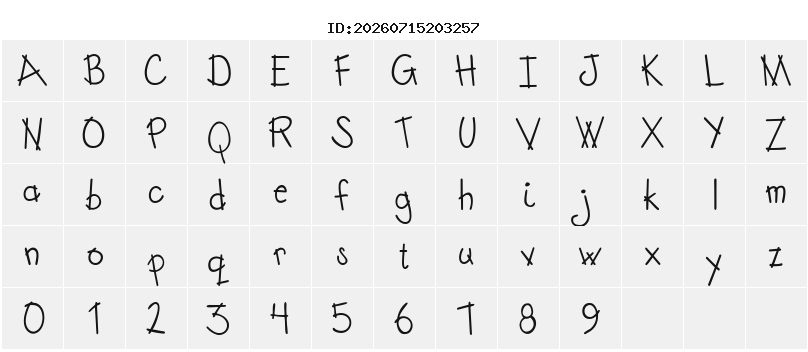
• Font Name: Austie Bost Toy Chest
• Full Font Name: Austie Bost Toy Chest
• Designer: Austin Owens
About Austie Bost Toy Chest.ttf
Austie Bost Toy Chest.ttf is a modern, elegant sans-serif font designed for ultimate readability and visual harmony. Perfect for branding, headlines, web design, and print materials.